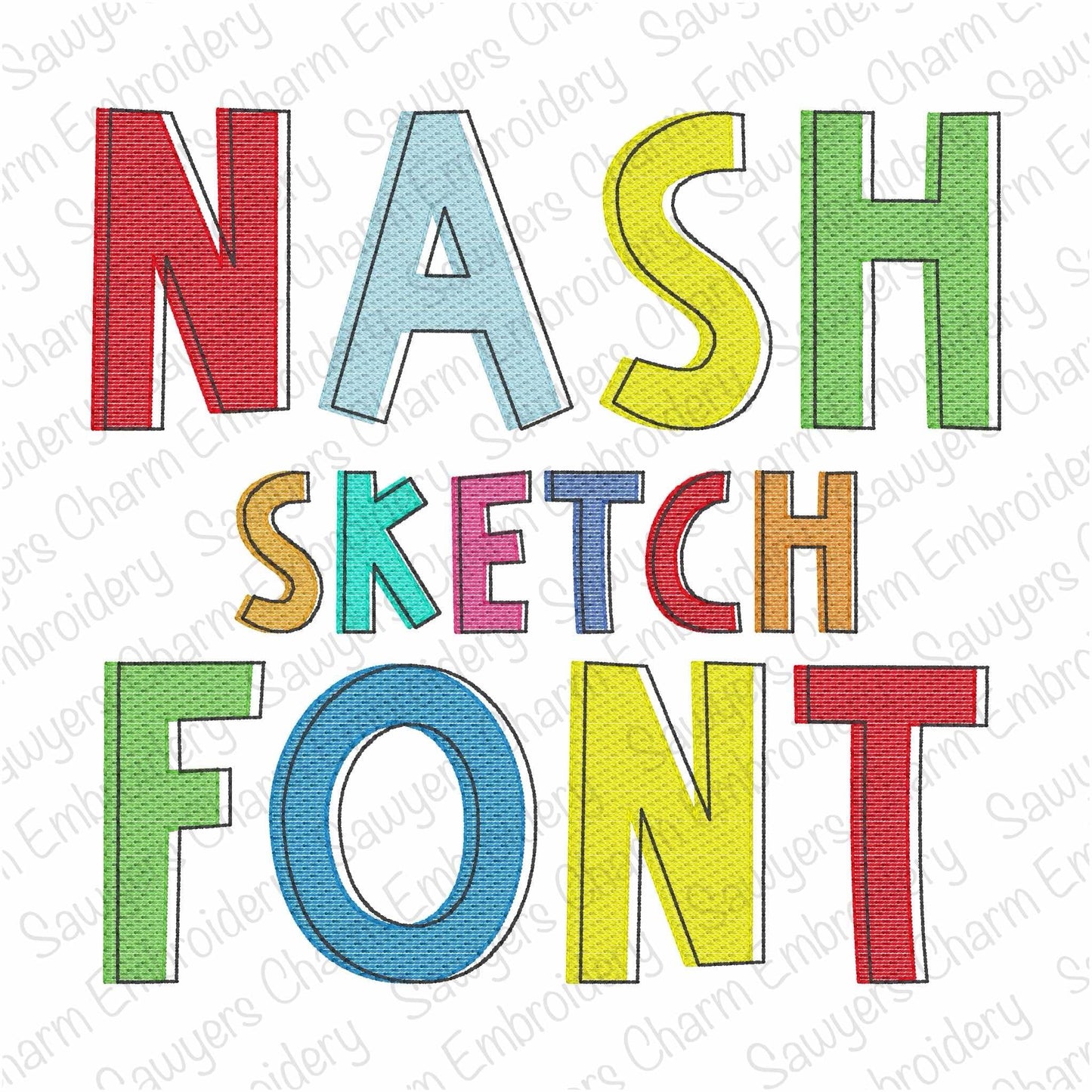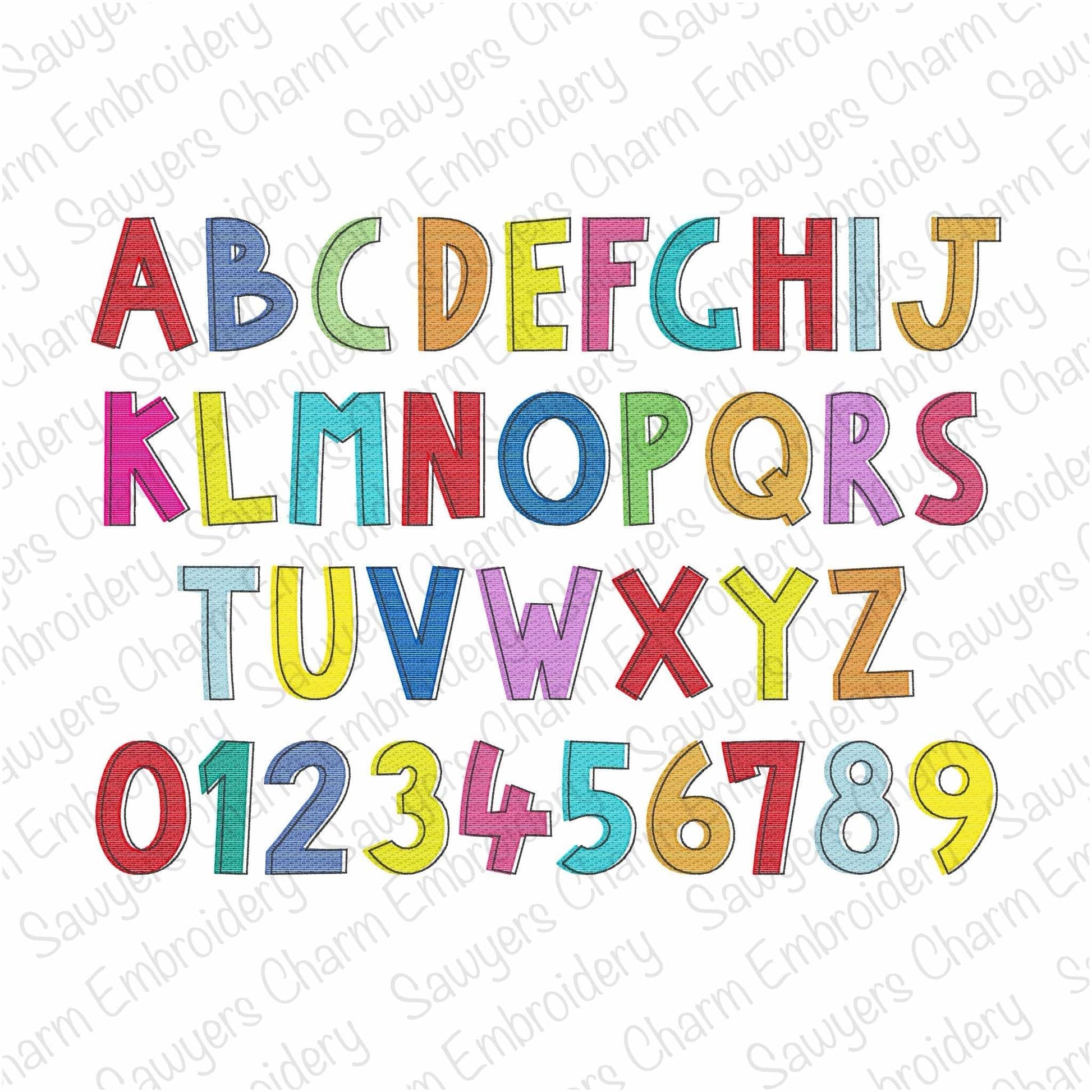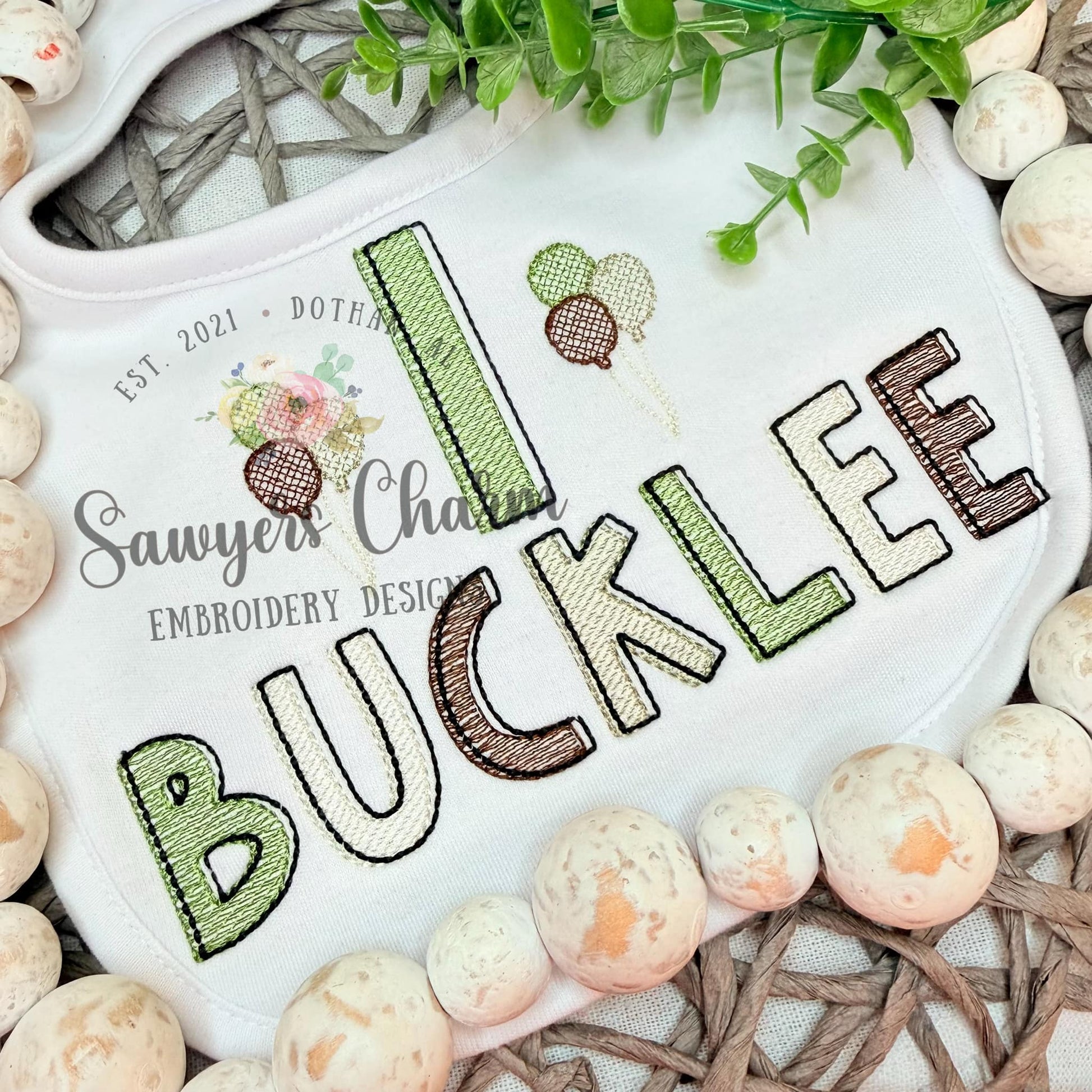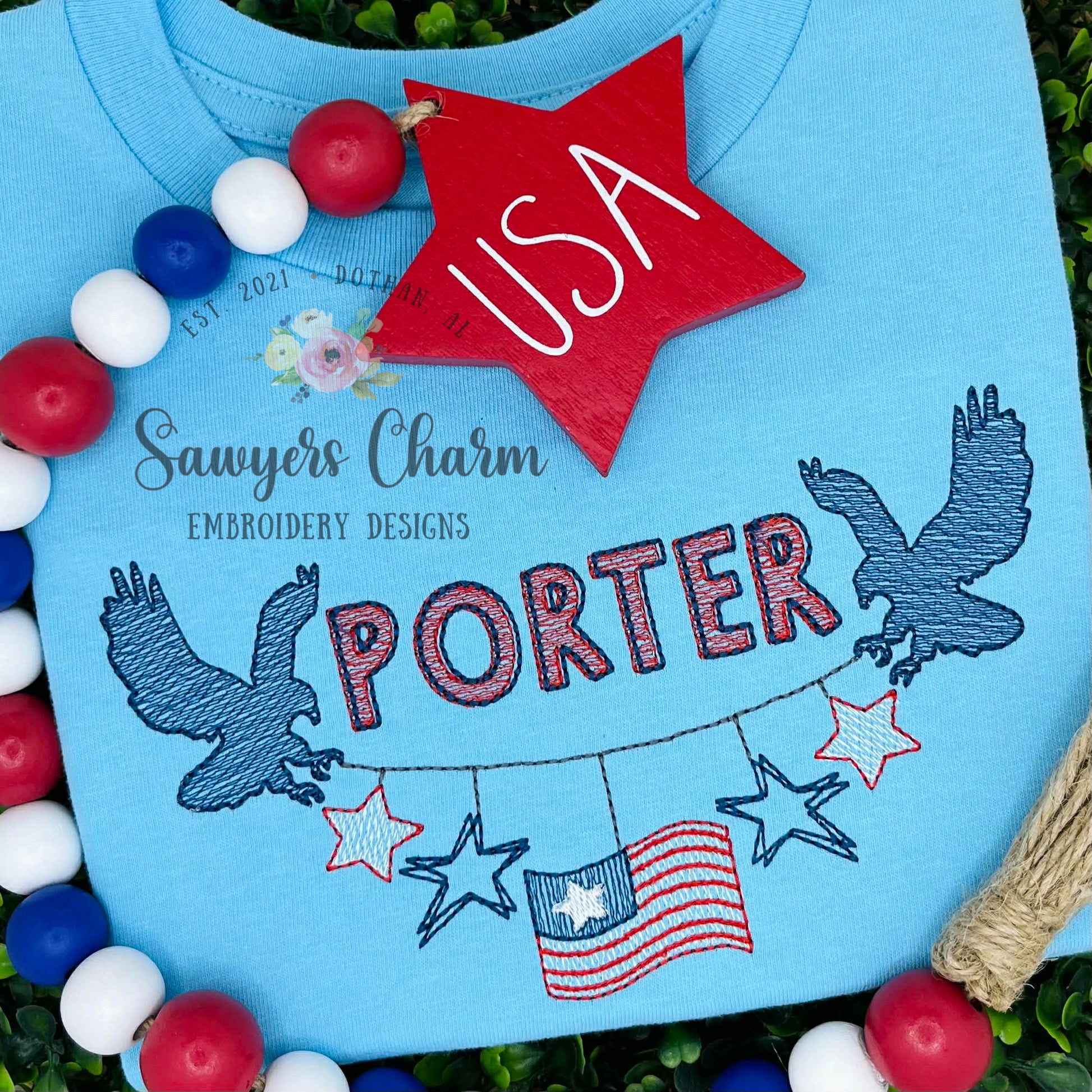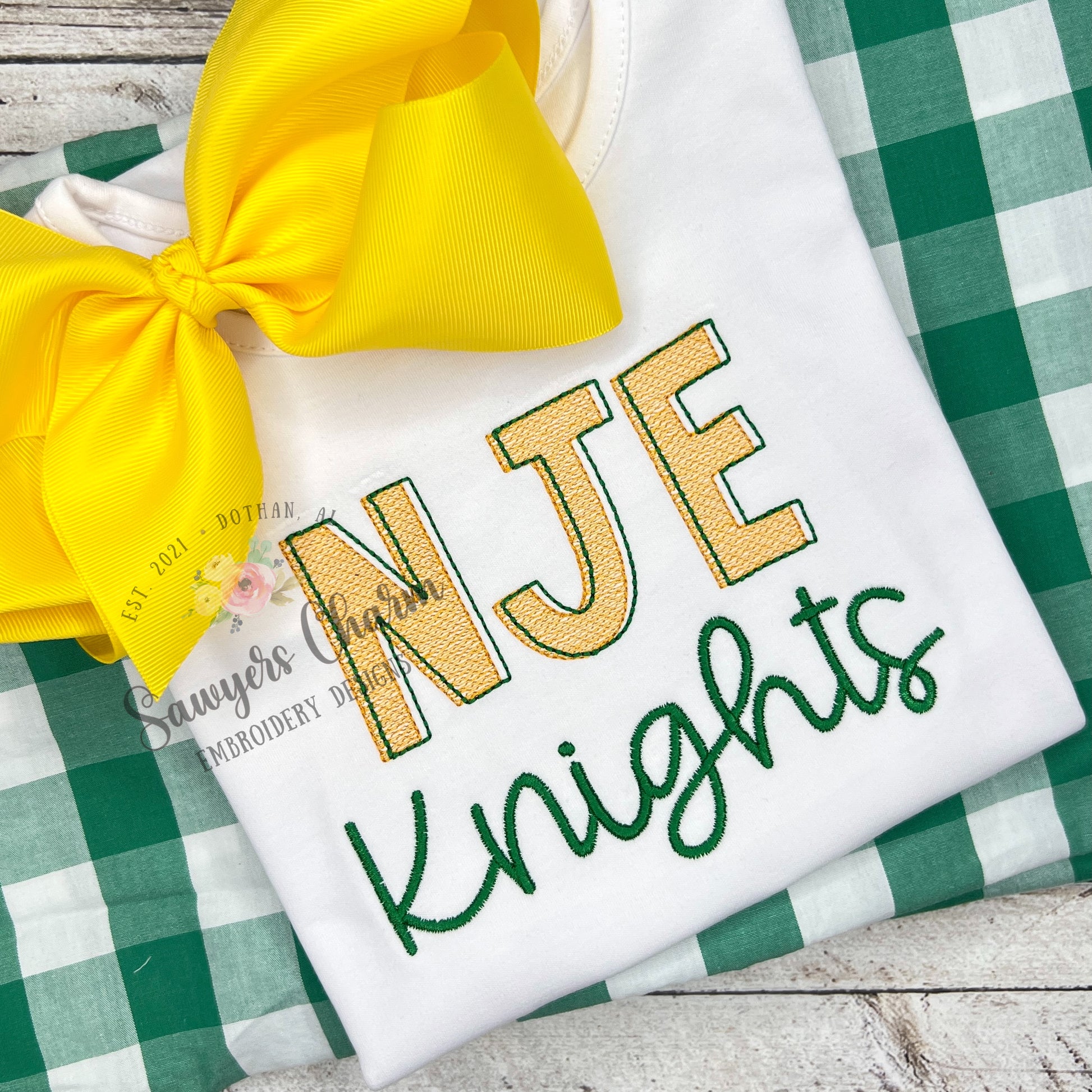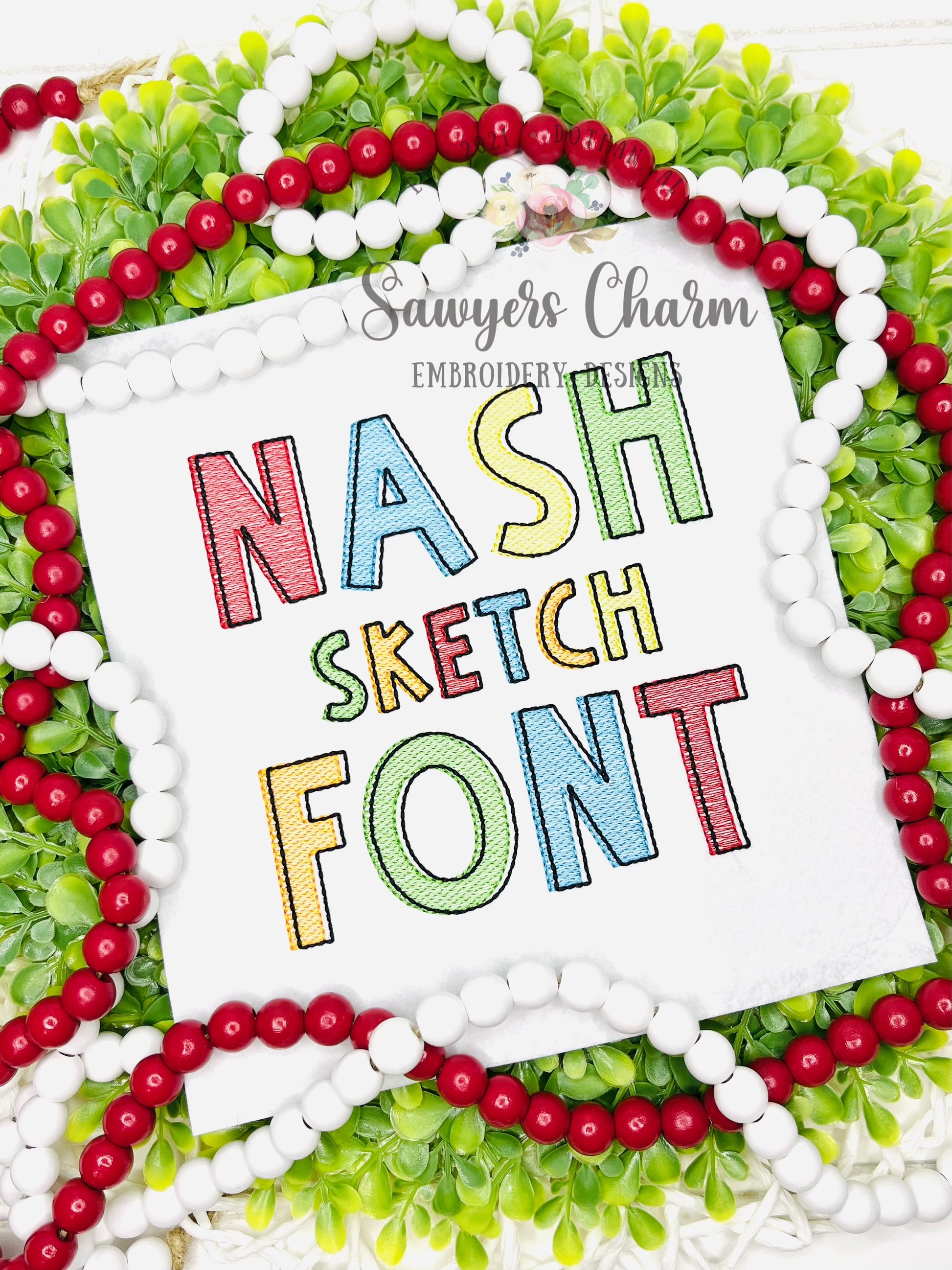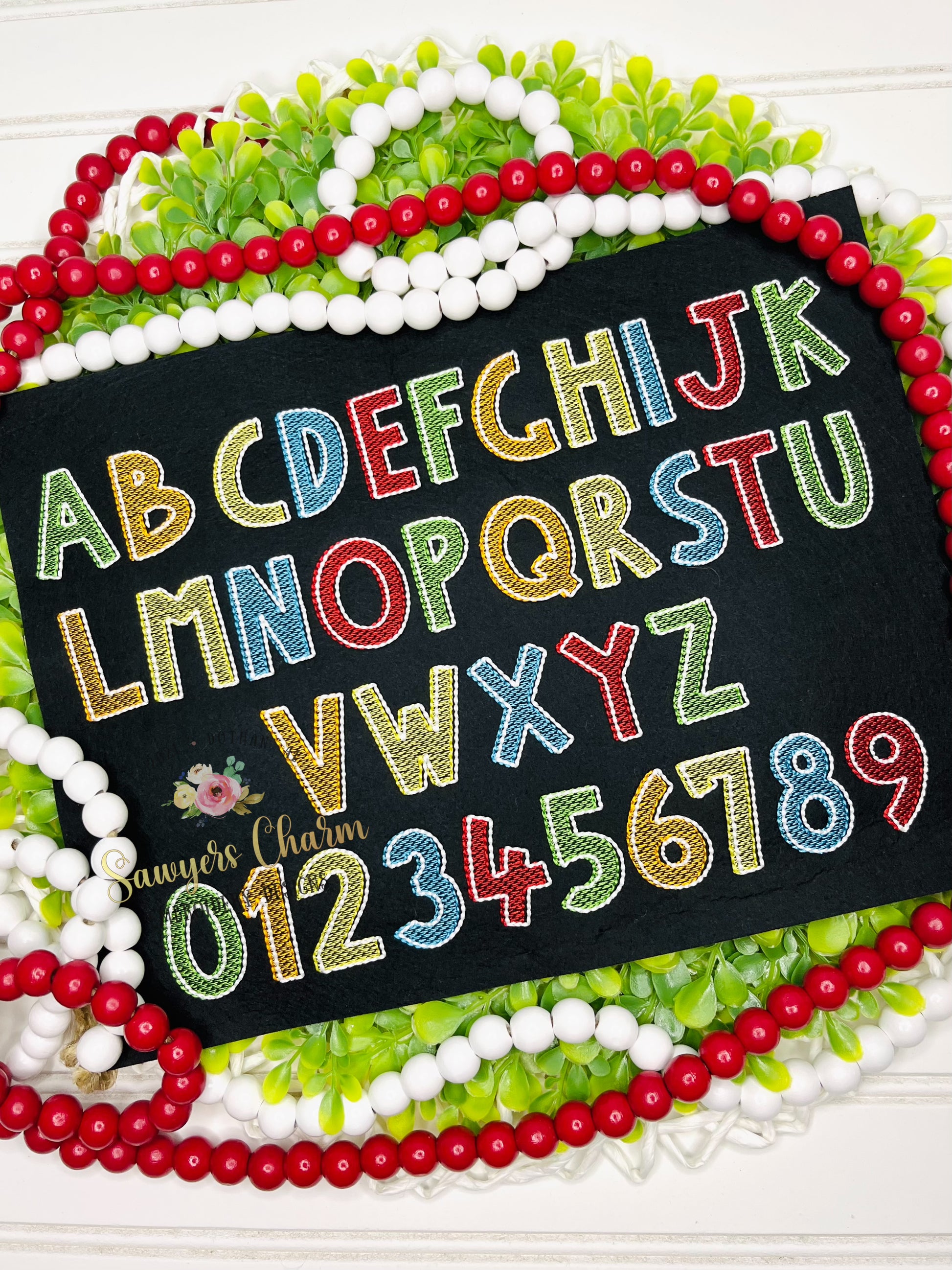
Nash Sketch machine embroidery font, bean stitch details, BX included, numbers, perfect for monograms
This embroidery font comes in several sizes.....1", 1.5", 2", 2.5", 3", 3.5", and 4". This is a light fill sketch stitch font with bean stitch finishing details. This has all 26 capital letters and numbers 0-9. This has an off-set final bean stitch that is PRECIOUS! :)